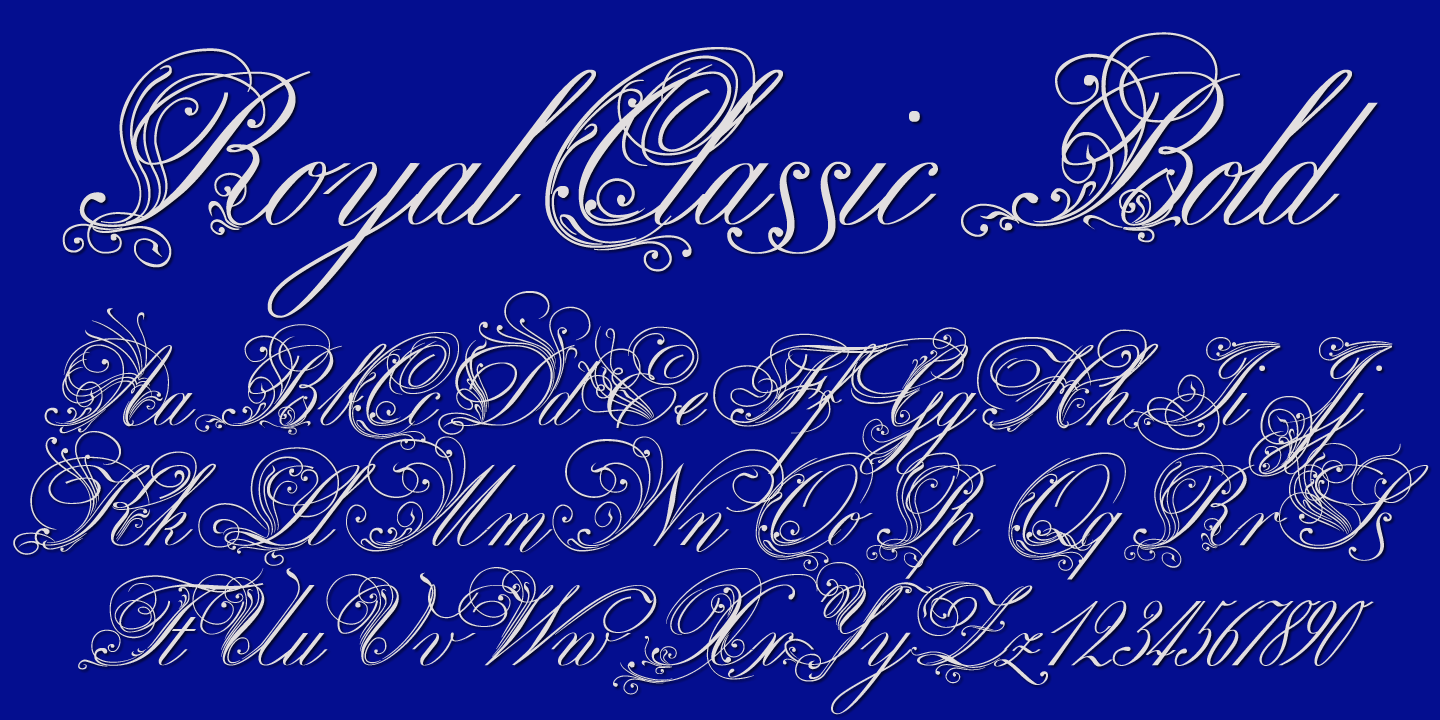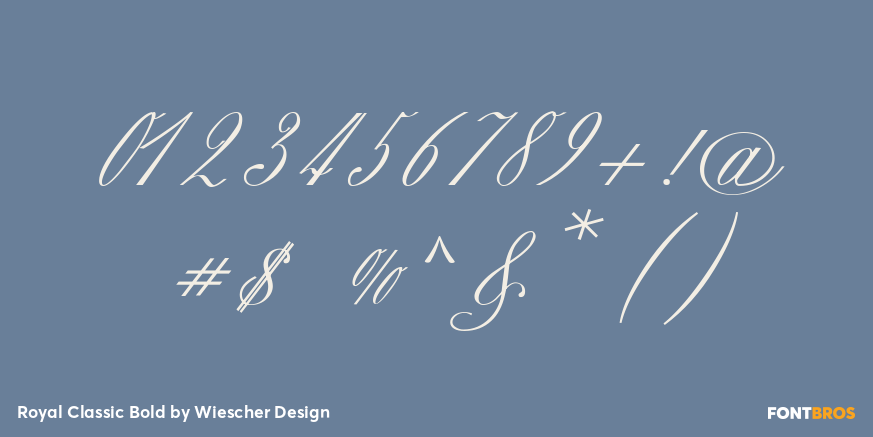
Royal Classic Bold
I proudly present Royal Classic Bold script. Royal Classic Bold is the fatter sister to Royal Classic.
I only sell the pair, because they should be mixed. Please do not use too many decorated initials!